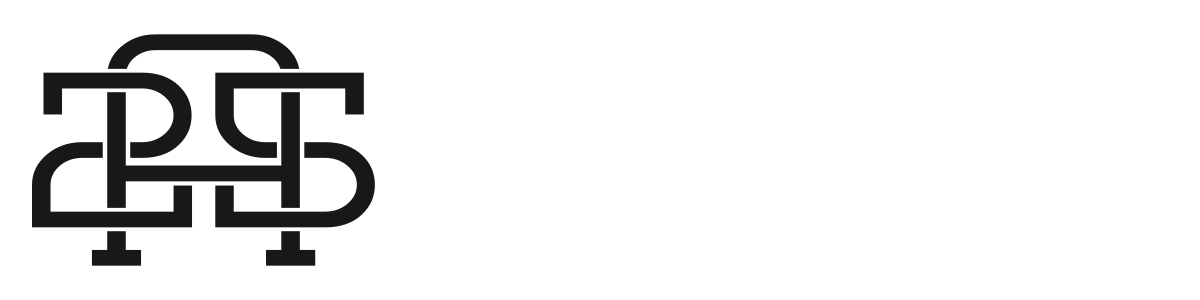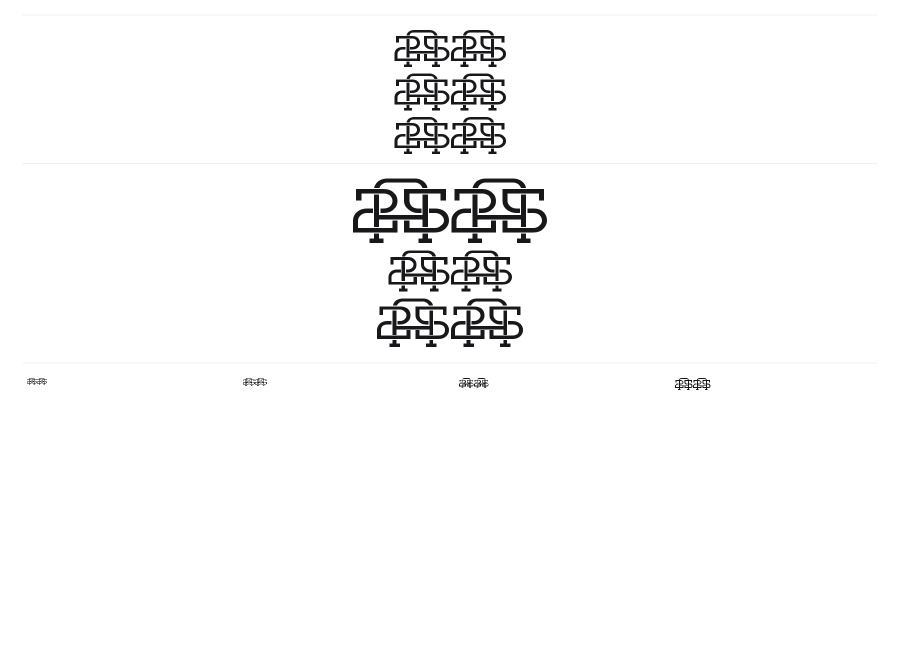
Ini Budi
Ini Budi is an interlocking monogram font built on tight geometric construction with bold, uniform strokes and angular terminals. Letters interlock in a dense, symmetrical grid pattern drawn from Art Deco and Victorian monogram traditions. It reads as a complete emblem rather than individual characters, making it a natural choice for logotypes, seals, and identity marks.